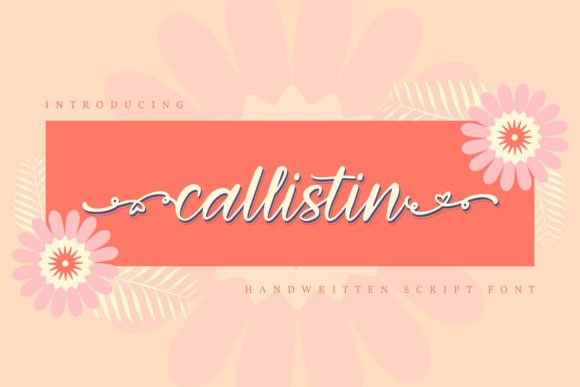
Prepare to be captivated by Callistin, a script font family that embodies the essence of artistry and sophistication. With its meticulously crafted handwritten style, Callistin offers an unparalleled level of versatility that will ignite your creativity.
Immerse yourself in the beauty of Callistin's adaptable nature. Let its flowing lines dance across your wedding invitations, transforming them into ethereal keepsakes. Adorn your stationery art with its elegant curves, creating timeless masterpieces that will be cherished for years to come. Unleash your imagination on social media with eye-catching posts that are sure to leave a lasting impression.
Callistin is more than just a font; it's a gateway to a world of artistic expression. Its balanced and varied character set provides endless possibilities for customization. Experiment with different combinations to create unique and captivating designs that will set your work apart.
Crafted with meticulous attention to detail, Callistin is a font that truly understands the needs of artists and designers. Its PUA encoding grants you effortless access to a treasure trove of glyphs and swashes, empowering you to add a touch of magic to your creations.
Join the ranks of discerning artists who have fallen head over heels for Callistin's enchanting allure. Let its beauty inspire you to create masterpieces that will captivate and inspire. Download Callistin today and unlock the endless possibilities that await you in the realm of artistic expression.